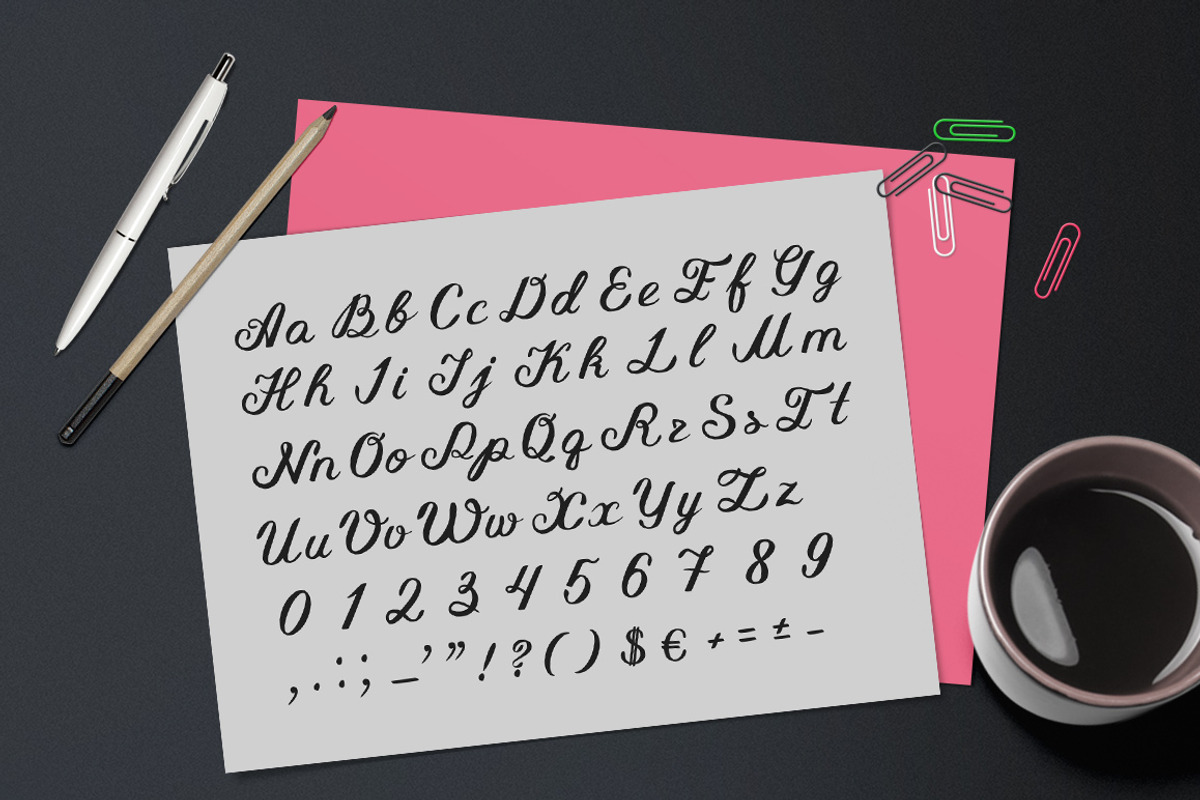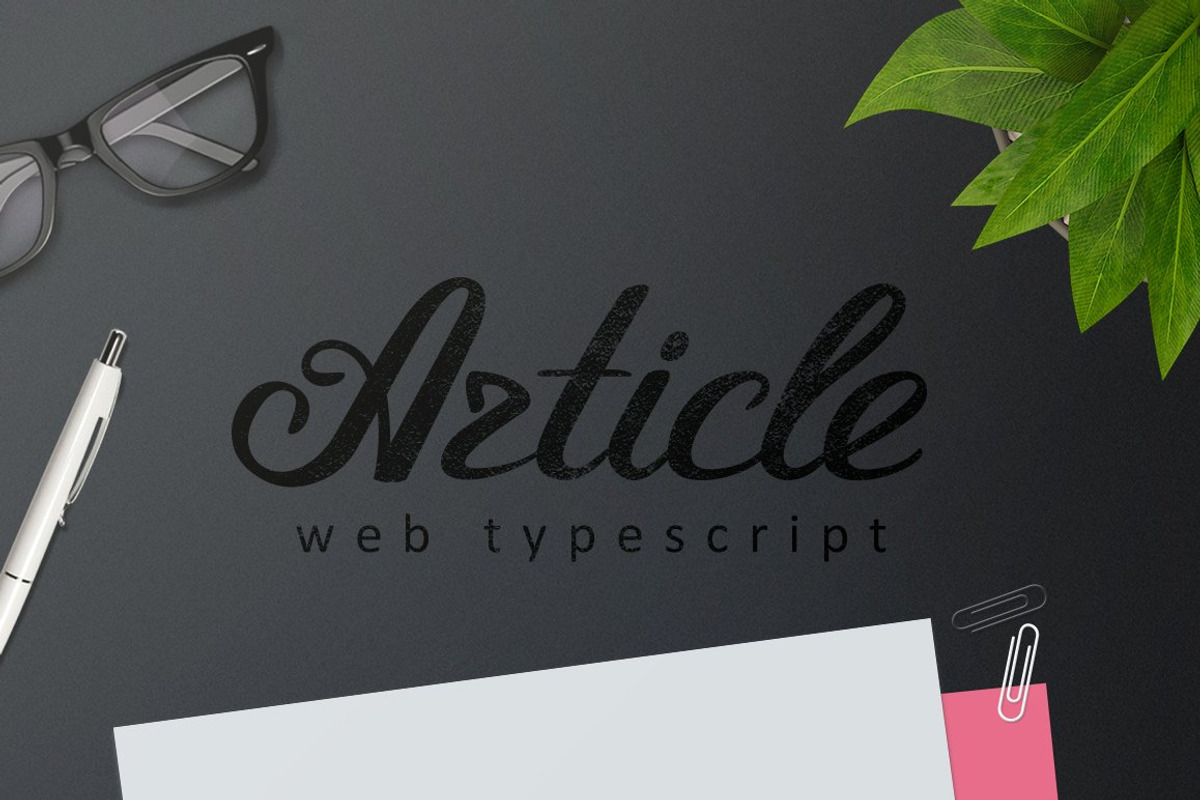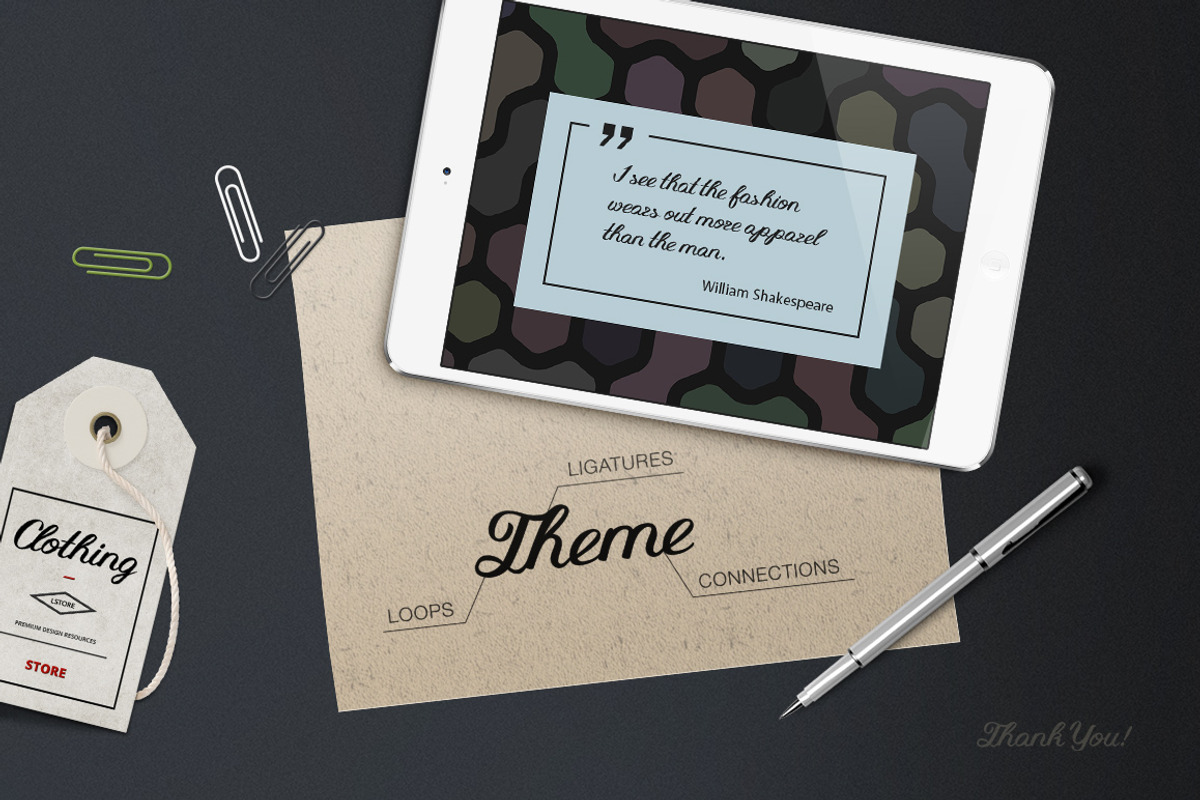
Article Typeface Script
Article Typeface Script by Sentavio is a font selected for branding, posters, packaging, typography.
- Alternate character contain with opentype features.
- Stylistic alternates, Ligature and more.
Why Article Typeface Script is worth a look
Article Typeface Script by Sentavio fits naturally into Branding, posters, packaging, typography.